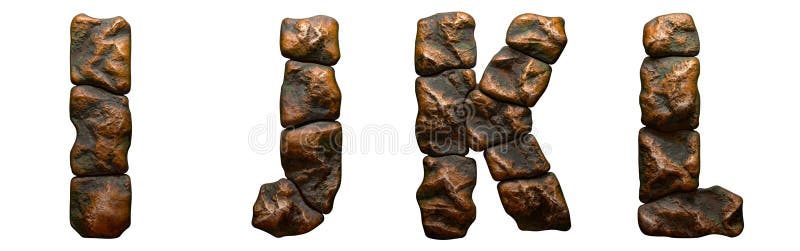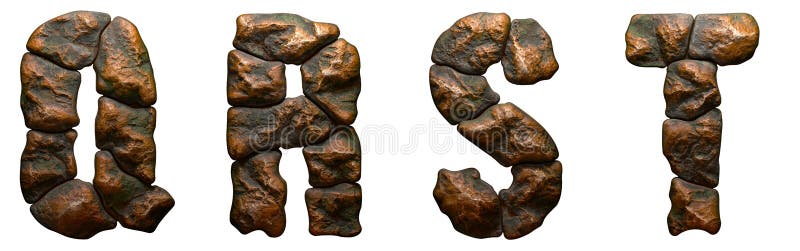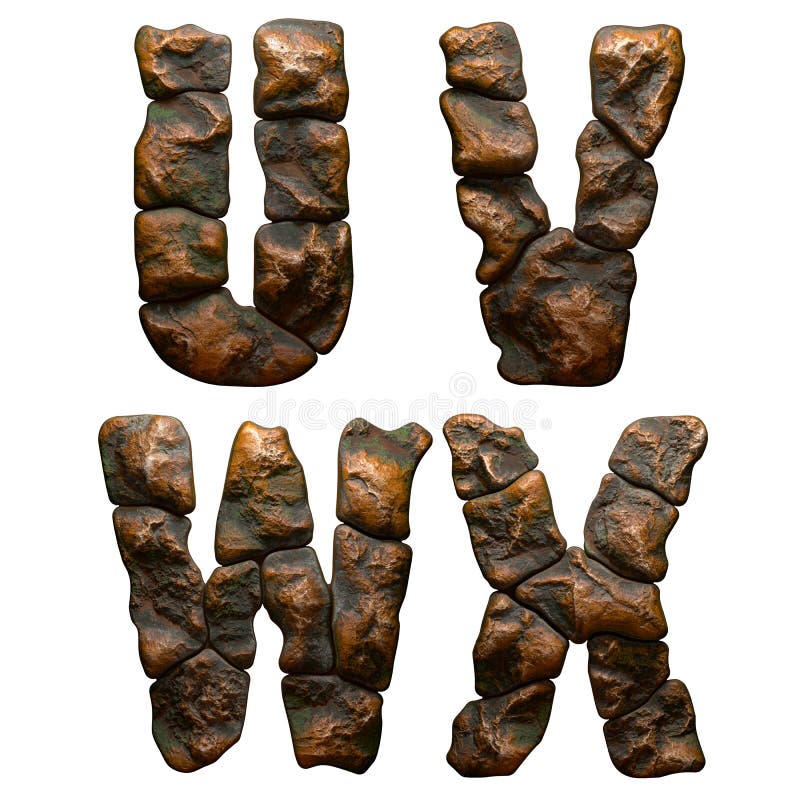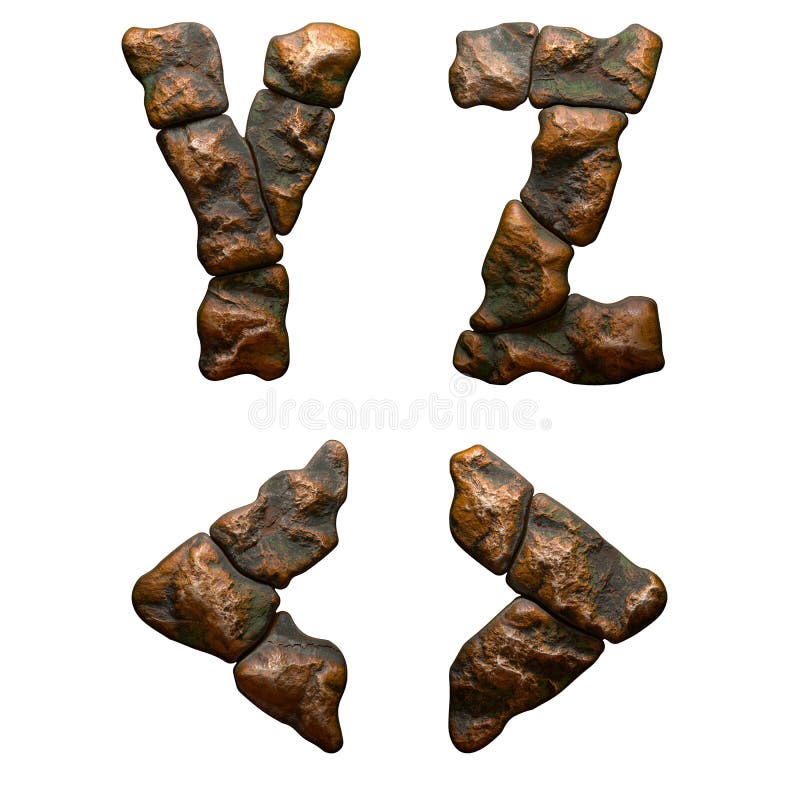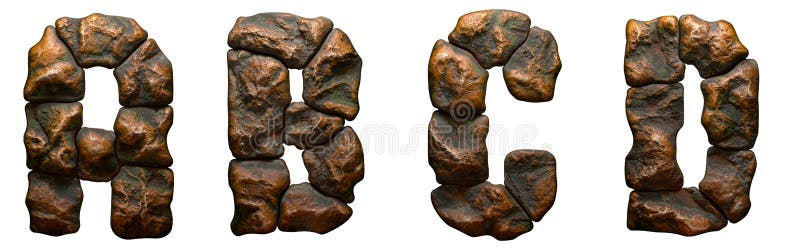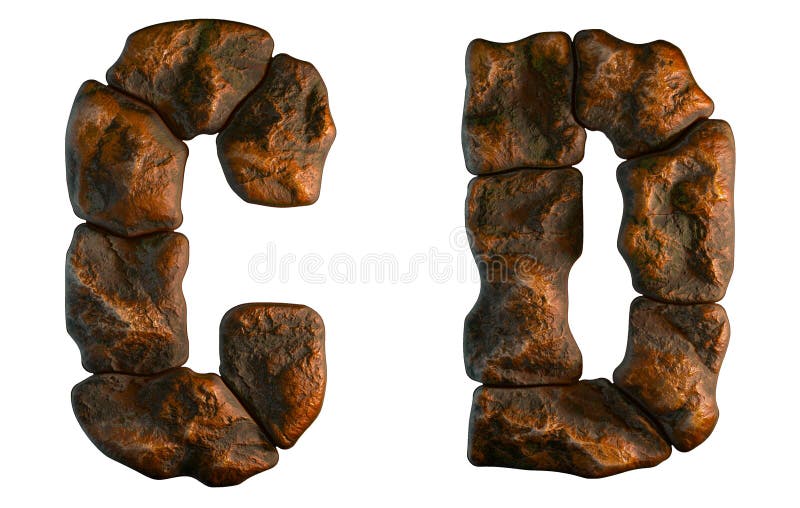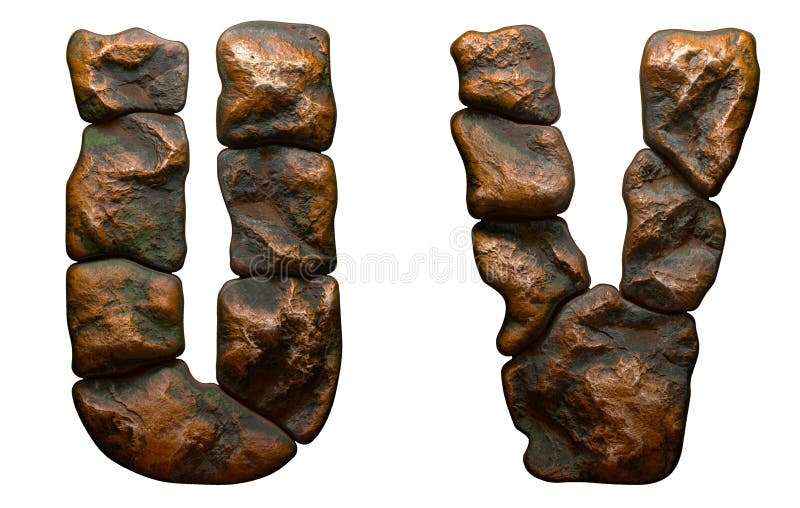
Set of rocky letters A, B, C, D. Font of stone on white background. 3D rendering. A 3D rendering of letters A, B, C, D made from rocks, set on a white background